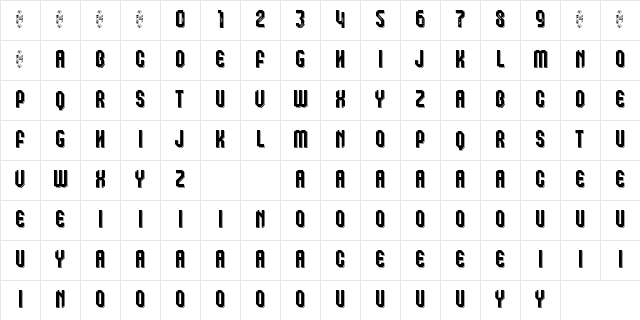
Klops Rglr Shdw Personal Regular
Foundry: Trequartista Studio
Designer: Muhammad Afif Ersya
Design Context for Klops Rglr Shdw Personal
Klops Rglr Shdw Personal is a composed and adaptable typeface that performs quietly and consistently across a wide range of design contexts.